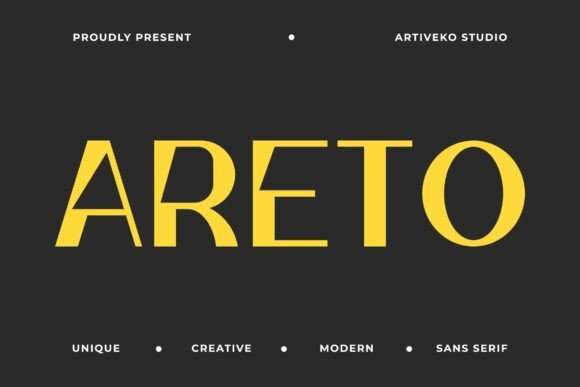
What Makes Areto Font Special?
Areto is a modern sans serif font with a creative edge, designed to bring clarity and character to your visual projects. With its clean lines, geometric construction, and subtle uniqueness, Areto stands out as the perfect choice for branding, logos, packaging, posters, and digital content.
My Honest Review of Areto Font
- ✅ Clean and Modern Design: Areto’s sleek lines and geometric shapes make it perfect for projects that require a contemporary look.
- ✅ Highly Versatile: From branding and logos to packaging and digital content, Areto adapts seamlessly to different design needs.
- ✅ Easy to Read: The font’s clarity ensures that your message is conveyed effectively, even at smaller sizes.
- ✅ Unique Character: Areto’s subtle uniqueness sets it apart from more generic sans serif fonts.
- ⚠️ Limited Extras: While Areto does offer some OpenType features, it may not have the extensive set of alternates or swashes that some designers might desire.
- ⚠️ Not Ideal for Body Text: Due to its design, Areto shines best in headlines and short texts; it might not be the best choice for lengthy body text.
The Story Behind Areto Font
The Areto Font was designed with the goal of creating a typeface that balances modernity with character. Inspired by the geometric shapes and clean lines of contemporary architecture, Areto’s designer aimed to craft a font that would not only be visually appealing but also highly functional across various design projects.
Q: What makes Areto Font unique?
A: Areto’s uniqueness lies in its blend of modern sans serif characteristics with a subtle edge, making it perfect for designs that require both clarity and character.
Q: Does Areto Font support OpenType features?
A: Yes, Areto offers some OpenType features, including stylistic alternates, which can add a unique touch to your typography.
Q: Is Areto Font suitable for body text?
A: While Areto excels in headlines and short texts, it might not be the best choice for lengthy body text due to its design focus on clarity and character.